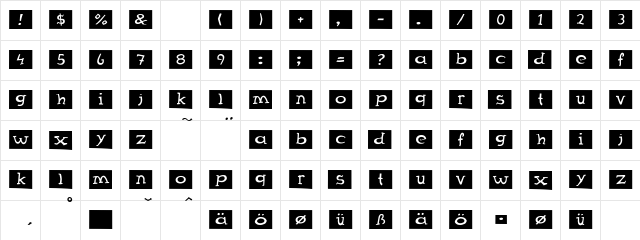
MexRegularTwo Regular
Design Context for MexRegularTwo Typeface
MexRegularTwo is a composed and adaptable typeface that performs quietly and consistently across a wide range of design contexts.